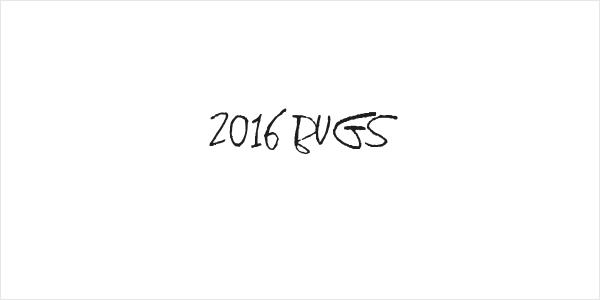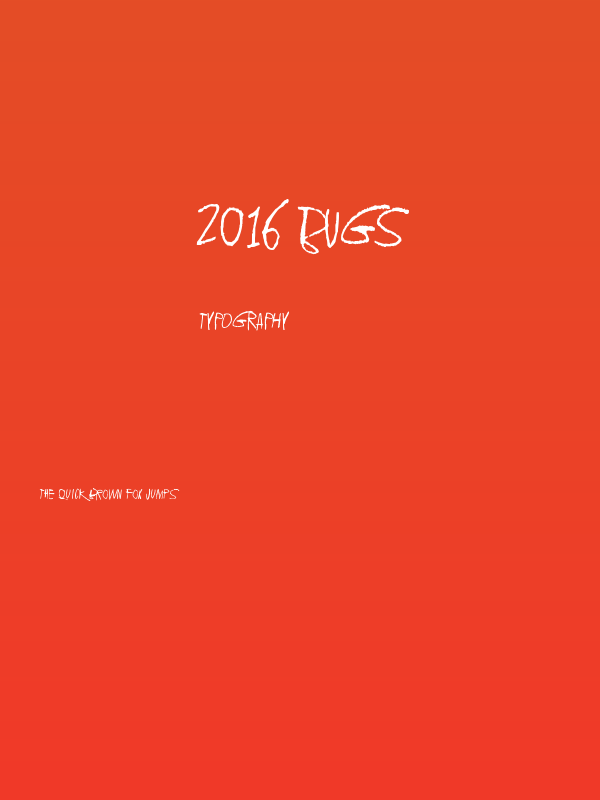
2016 Bugs Font
2016 Bugs Description
This font exudes a raw, energetic vibe with its hand-drawn, graffiti-like appearance. The letters are irregular and dynamic, with varying stroke thicknesses that convey a sense of movement and spontaneity. The uppercase and lowercase characters maintain a consistent style, while the numbers and special characters integrate seamlessly, enhancing the font's cohesive yet chaotic aesthetic. The overall look is bold and expressive, making it ideal for projects that require a touch of urban edge or artistic flair.
| Proposed Projects | Perfect for street art designs, edgy posters, album covers, or any project needing a rebellious touch. |